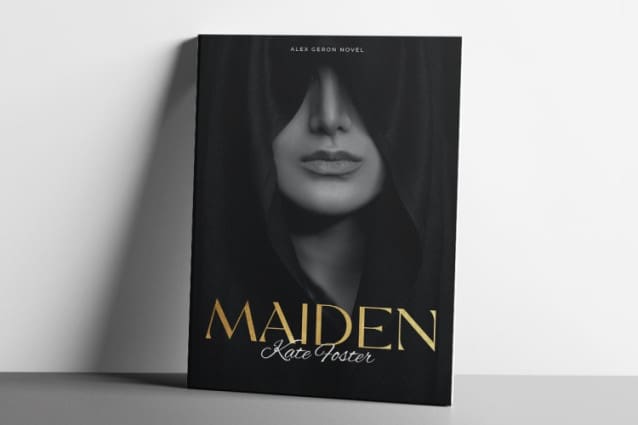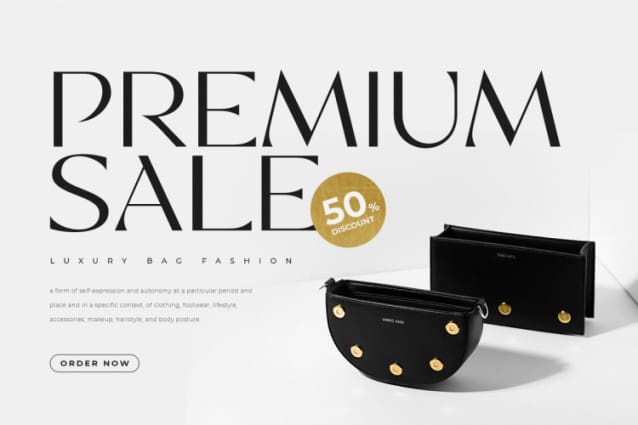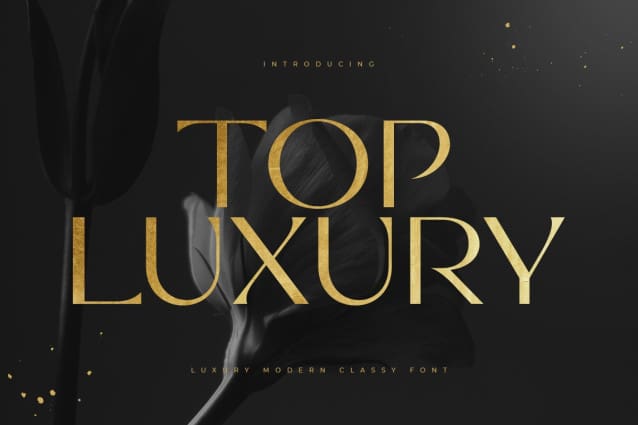
Top Luxury Font
Top Luxury Font A Modern Classy Luxury Font that we created special for Luxury and Fashion branding needs, with extra characters alternate in unique shape will be ready to add value of your brand. It so nice to leverage designer or product owner that need solutions to make their design look more classy and modern. And specially for this font, We prepared any alternate characters to help you create unlimited variations for your creative needs.